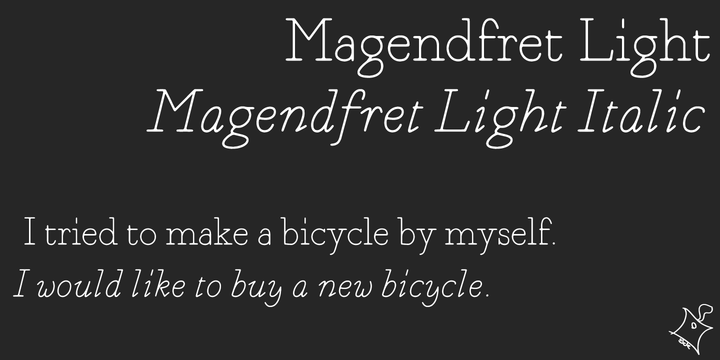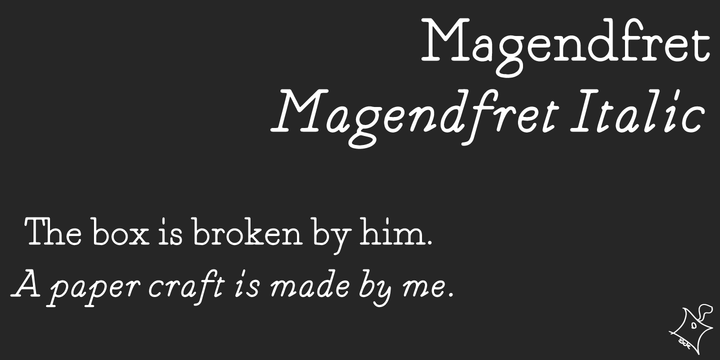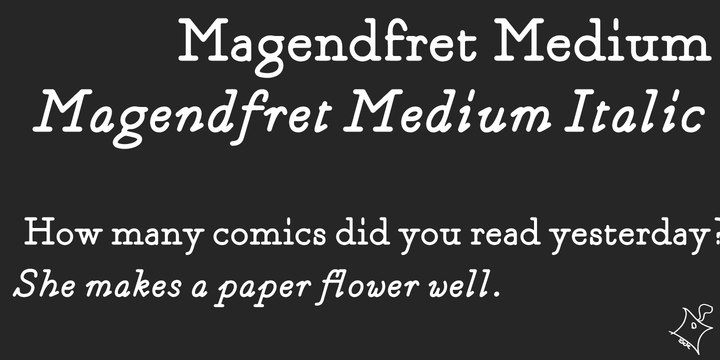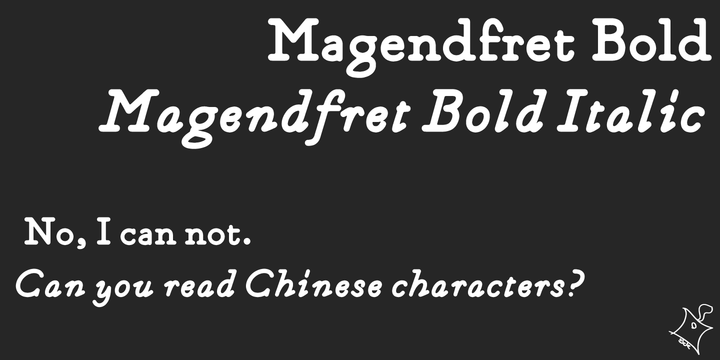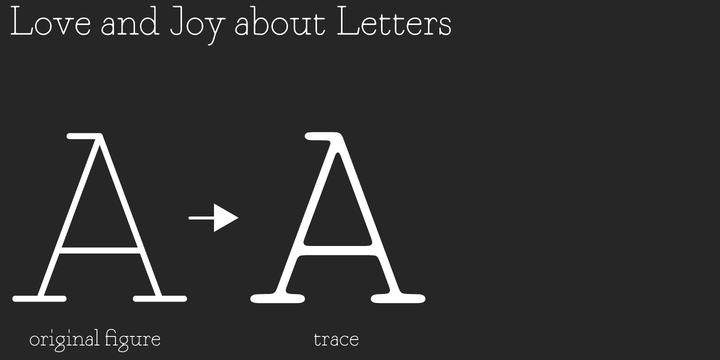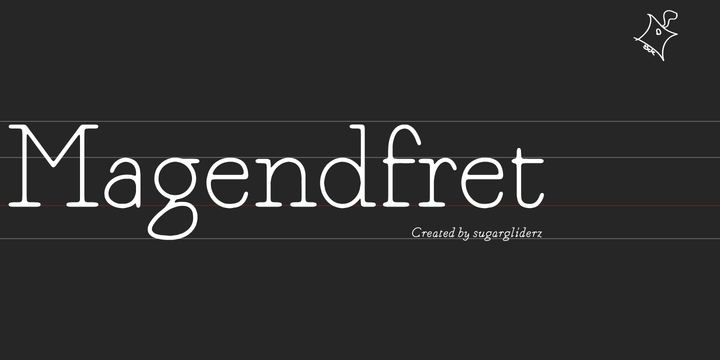
Magendfret Font Family
Magendfret is a typeface that was designed very mechanically. However, it is also the optimal typeface for expressing soft warmth.
Magendfret was designed by constructing a “line.” That is: it is based on the concept “it is the combination of a straight line and a curve with a character.”
I made the character from the act of using and constructing a vector graphics editor, a mouse, and a keyboard. That, I thought when constructing it, should make neither a roman type nor italic type into a novel form, and a very general form. Once those characters were bit-map-ized, they traced again mechanically by the vector graphics editor. It became a soft impression by this work.
The very mechanical act of changing the thickness of a line uniformly constitutes the family. The thickness of seven patterns was created first and, finally it results in four patterns. Respectively, styles called Light, Regular, Medium, and Bold are attached as usual.